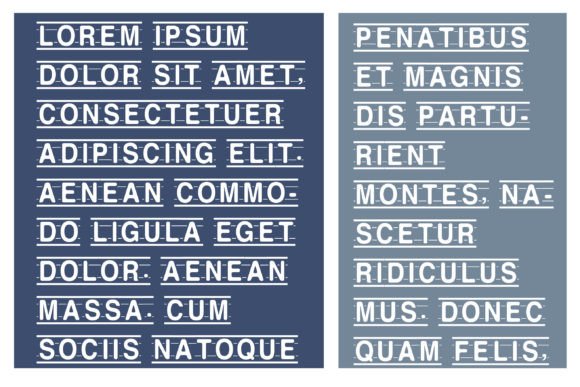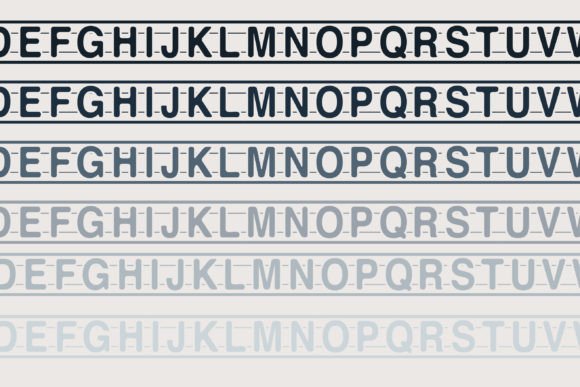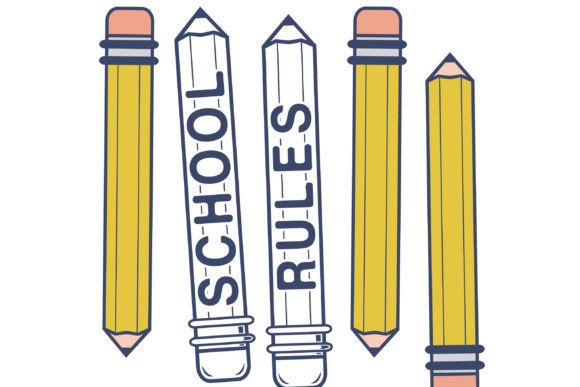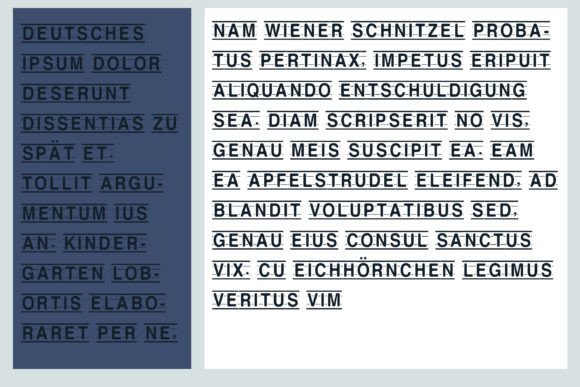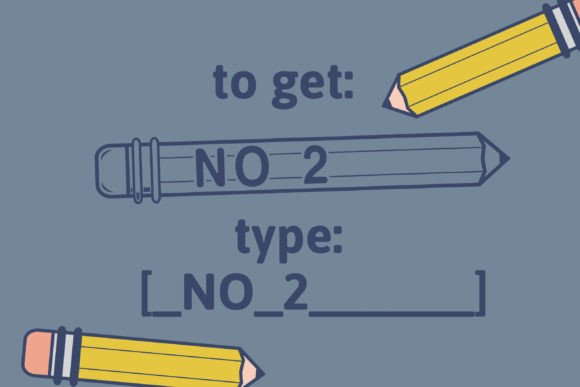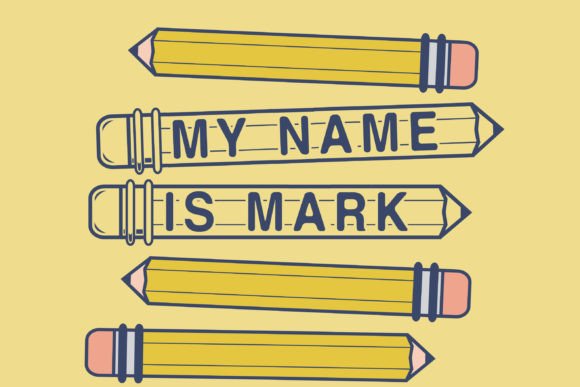
Introduction to Number Two Font
Have you ever found yourself scribbling down a brilliant idea in a notebook, only to realize it’s not quite legible? The struggle is real, but what if you could add a touch of whimsy to your handwritten notes, making them instantly more charming and memorable? Enter the Number Two Font – a delightful, free download that’s sure to become a go-to design resource for any creative project.
With its playful, pencil-inspired design, this high-quality font is perfect for adding a personal touch to your work. The transparent background allows for seamless integration into your designs, making it a valuable addition to any designer’s toolkit. Whether you’re working on a project that requires a lighthearted, creative tone or simply want to spice up your everyday notes, the Number Two Font is sure to deliver.
Key Features of Number Two Font
- High-quality, professional design suitable for various creative projects, including logos, branding, and advertising.
- Transparent background, allowing for easy customization and layering in design software.
- Unique characteristics include a modern, sans-serif design with a subtle flair, making it stand out in creative projects.
- Supports a wide range of languages, including Latin, Cyrillic, and Greek, making it a versatile design resource.
Honest Review: Number Two Font
I’ve been using the Number Two Font for a creative project and I’m impressed with its high quality design. The font is a great resource for designers who want to add a modern touch to their work.
What works well is the clean and minimalist design of the font. The transparent background makes it easy to customize and pair with other design elements. The free download option is also a huge plus, making it accessible to designers of all levels.
- ✨ Clean and minimalist design
- ✨ Transparent background for easy customization
However, I’ve noticed a few limitations. The font doesn’t come with a wide range of weights, which can limit its versatility. Additionally, the font may not be suitable for complex designs that require a lot of text manipulation.
- ⚠️ Limited range of weights
- ⚠️ May not be suitable for complex designs
Overall, I’m impressed with the Number Two Font and would recommend it to designers who want a high-quality, modern font for their creative projects. However, be aware of its limitations and use it accordingly.
The Number Two Font is perfect for creative projects that require a clean and modern look, such as logos, business cards, and social media graphics. It’s also a great choice for designers looking for a high-quality, free download font that can be used in various design applications.